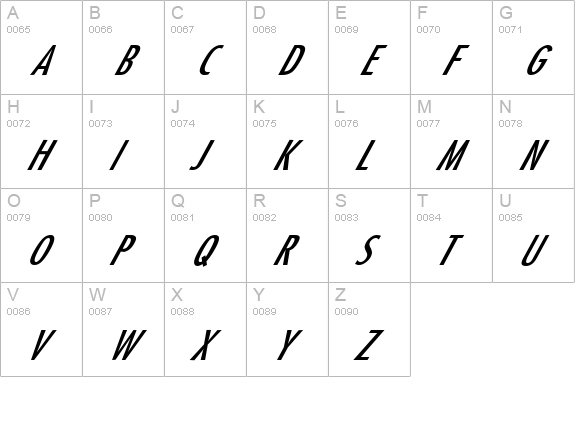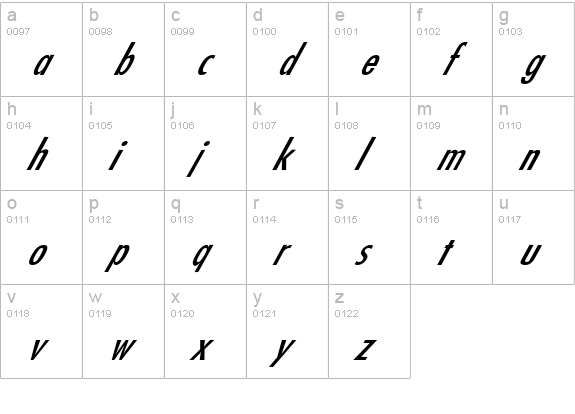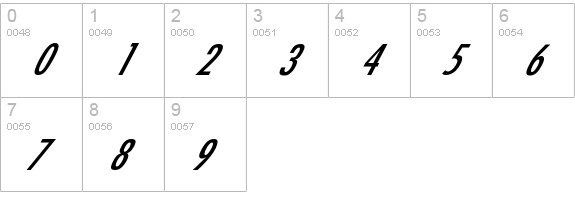
FFX Logo Font Details
The FFX Logo font is a striking and modern typeface that is sure to make a bold statement in any design project. Its sleek and futuristic design is perfect for logos, headlines, and other display purposes. This font features clean lines, sharp edges, and a contemporary aesthetic that will give your work a professional and polished look. Best of all, the FFX Logo font is completely free to download at FontsMarket.com. This means you can easily access this high-quality typeface without having to spend a penny. Whether you're working on a branding project, advertising campaign, or any other creative endeavor, the FFX Logo font is a versatile and stylish choice that is sure to impress. Download it today and take your designs to the next level.